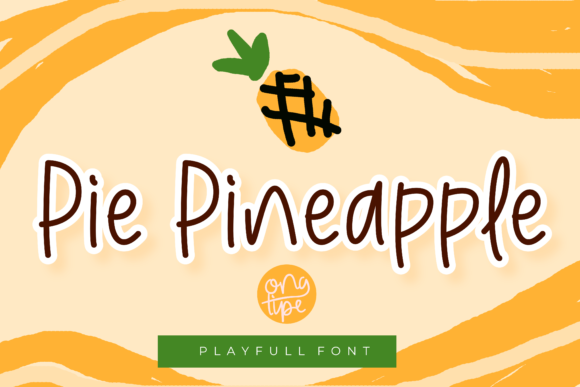
Immerse yourself in the whimsical world of Pie Pineapple font, a charming handwritten treasure crafted by Ongtype co. Designed to dance across your digital canvas with its delicate strokes and cheerful curves, Pie Pineapple is a feast for the eyes that will instantly captivate your audience.
With its playful personality, Pie Pineapple is a versatile gem that effortlessly complements a wide spectrum of creative endeavors. Let your imagination soar as you explore its endless possibilities - from crafting heartfelt messages and eye-catching logos to designing vibrant social media posts and stunning website headers. The possibilities are limitless, bound only by the reaches of your creativity.
Step into a realm of enchanting elegance with Pie Pineapple, a font that transforms the ordinary into the extraordinary. Its refined lines and graceful swashes evoke a sense of sophistication and charm, adding a touch of magic to every project you undertake. Watch as your designs blossom with an allure that captivates and enchants, leaving an indelible mark on the hearts of all who behold them.
Unleash your inner artist and embrace the boundless joy of Pie Pineapple, a font that ignites your creative spirit. Let its whimsical strokes inspire you to create masterpieces that resonate with your audience, leaving them spellbound and eager for more.